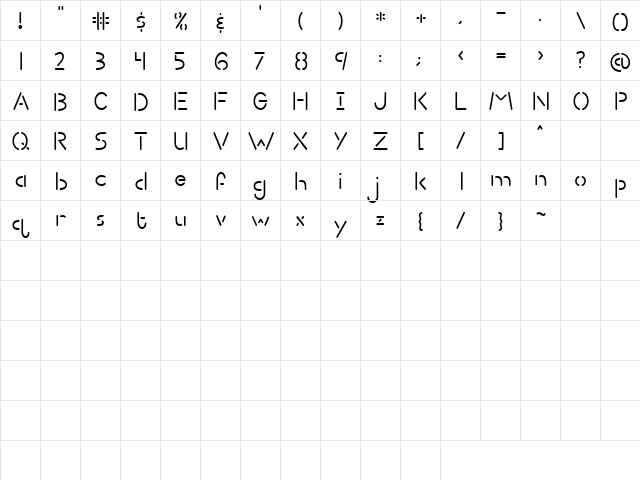
LD Stencil Regular
Design Context for LD Stencil Typeface
LD Stencil has the rough pragmatism of spray-painted stencil signage, adding a raw, street-level authenticity to designs.
Ideal for industrial branding, streetwear, military-adjacent aesthetics, and urban signage projects.